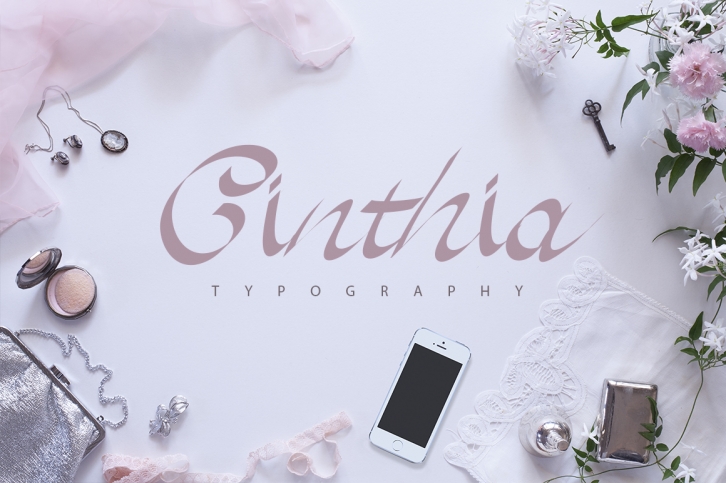
Cinthia is a lovely typeface with curvy hand-drawn letters.
This super elegant font works great on wedding invites and cards, handmade signs and other items that require an smooth elegant touch.